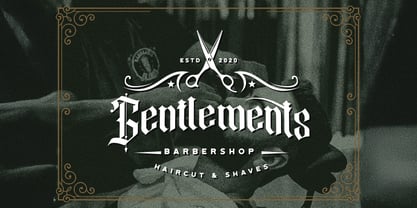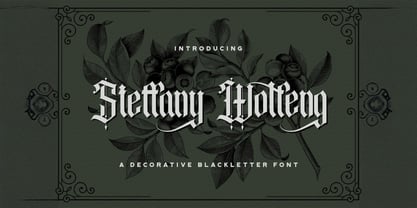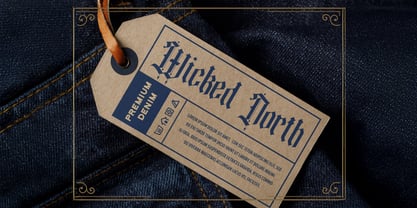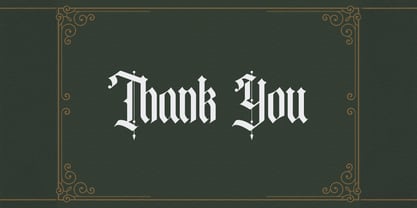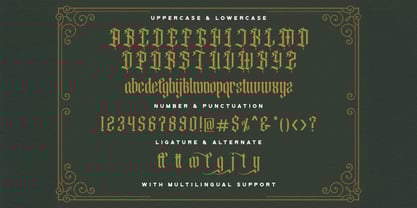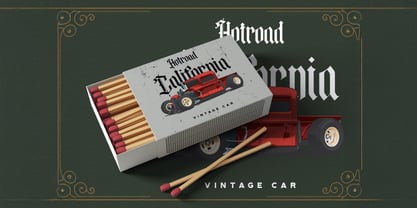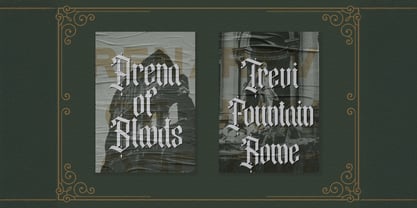
Steffany wolfeng
von Stringlabs Creative Studio
Die Schriftfamilie Steffany wolfeng wurde von Virgiawan Listanto entworfen und von Stringlabs Creative Studio veröffentlicht. Steffany wolfeng enthält 1 Stile.
Steffany Wolfeng is a bold and elegant blackletter font that combines medieval gothic style with a refined, modern edge. With its sharp lines, flowing strokes, and intricate design, Steffany Wolfeng adds drama and sophistication to any creative project.
Designer: Virgiawan Listanto
Herausgeber: Stringlabs Creative Studio
Foundry: Stringlabs Creative Studio